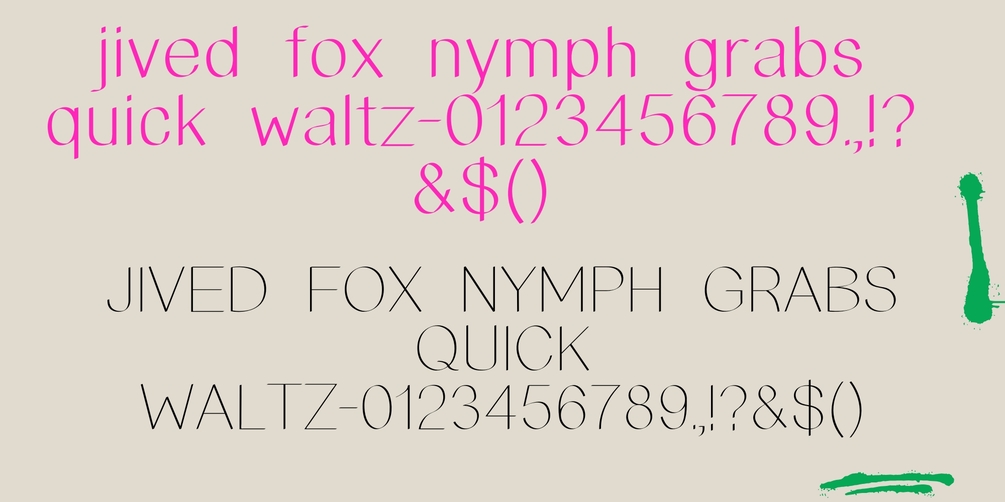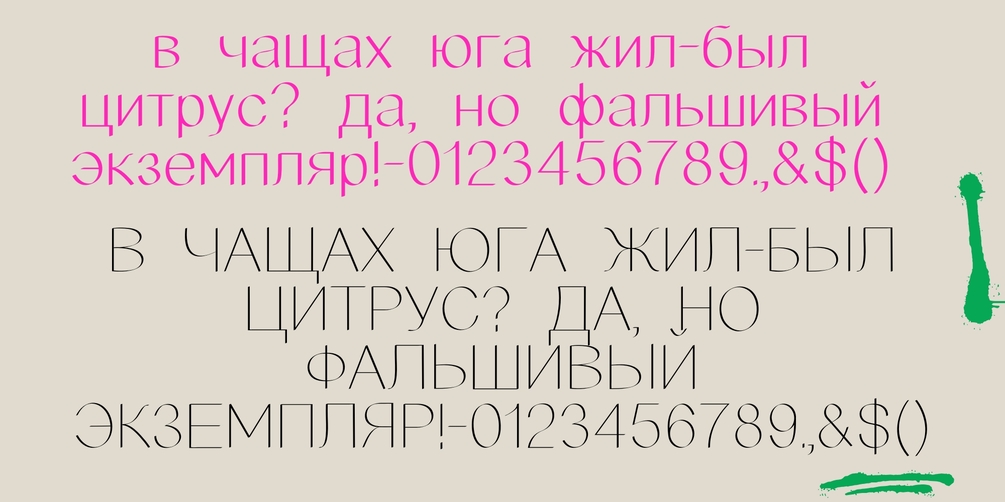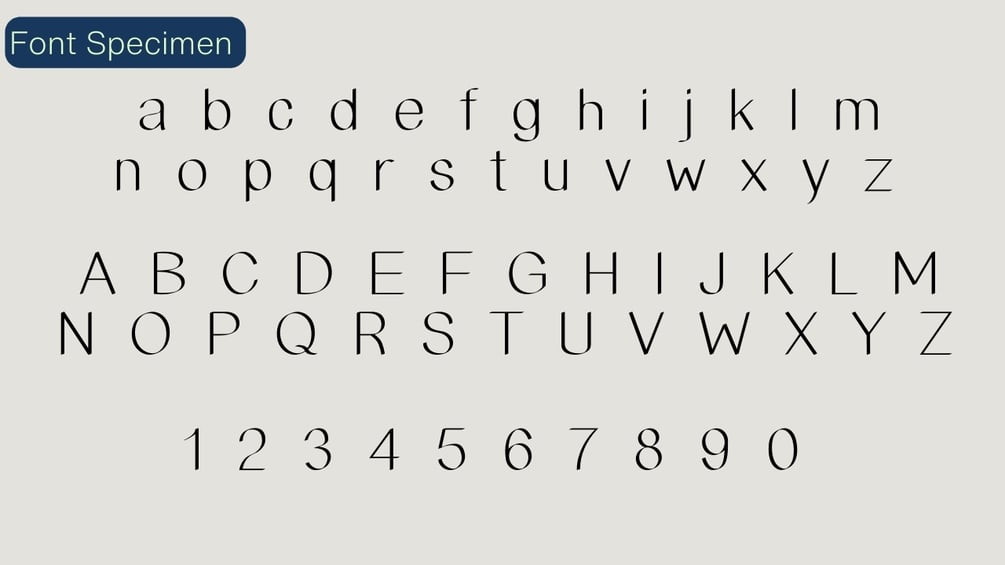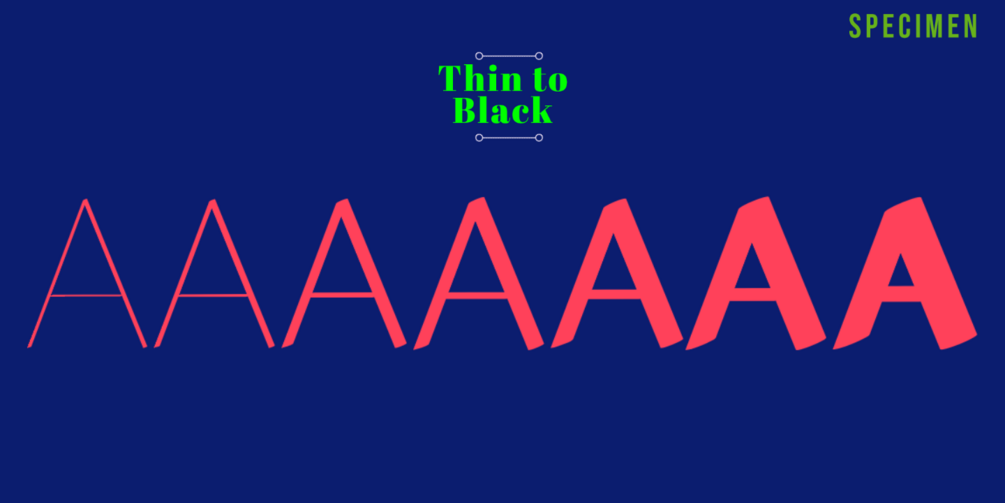
MATCHOUT
Matchout is a modern calligraphy sans-serif font that combines elegance with versatility. With eight distinct weights, this font includes uppercase and lowercase letters, punctuation, symbols, numerals, and full Cyrillic support—making it perfect for multilingual designs. Its playful yet clean style suits a wide range of creative projects, from branding, logos, and websites to invitations, posters, flyers, and marketing materials. Whether you're designing eye-catching signage, stylish greeting cards, or engaging social media graphics, Matchout delivers a perfect balance of fun and functionality. Ideal for both professional and casual use, this font ensures readability and visual appeal across print and digital media, making it a must-have for designers, businesses, and creative enthusiasts.